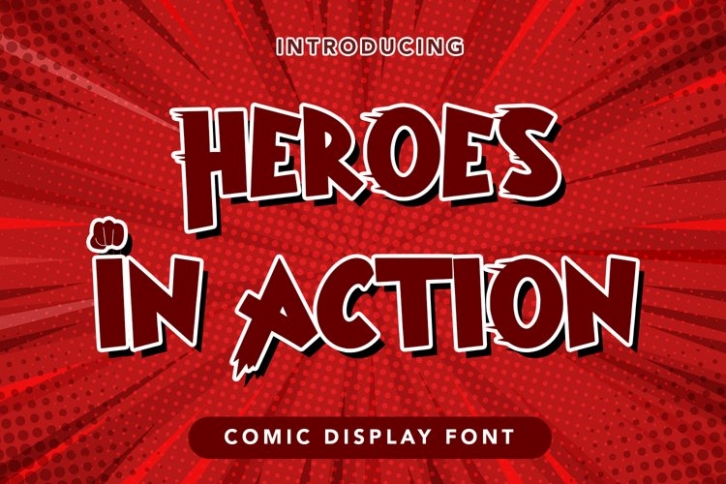
Heroes In Action is a beautiful font that was designed by plusstore. It's a great choice for designers and creatives who need such a font. It was released on December 18, 2021 and the file size is 13.61 MB. Heroes In Action may give a more youthful, expressive and casual look to your project. It is a very beautiful, refined, elegant, and high-quality font.